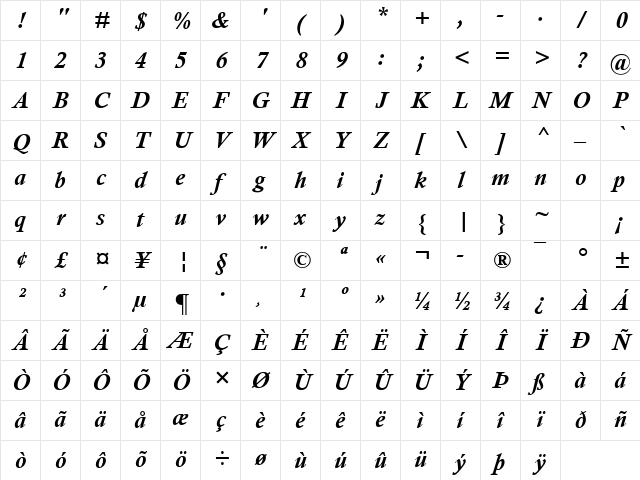
Calisto MT Bold Italic
Foundry: Monotype Typography
Designer: Ron Carpenter
Design Context for Calisto MT
Calisto MT is a composed and adaptable typeface that performs quietly and consistently across a wide range of design contexts. The slanted form adds forward momentum and visual energy. Its bold stroke weight gives it real presence on the page.
Pro Tip: Use Calisto MT for emphasis, pull quotes, and subheadings where its slanted energy can add rhythm to the layout.